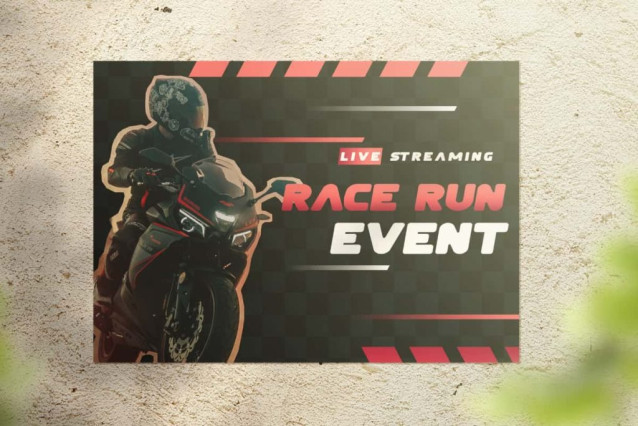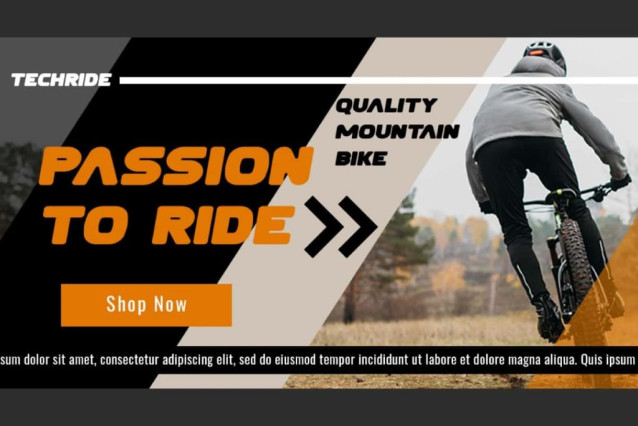
Nasionaliz Font
Nasionaliz Font is a fun and attractive strong bold typeface, suitable for all unique and semi-futuristic design works! This font can be used for anything such as banners, blogs, brochure, coves, flyer, headline, invitations, label tags, mockup, poster, printed materials, quotes, signage, skateboard, sticker, t-shirt designs, template, website, etc. Get creative!
Nasionaliz Font includes full set of Uppercase and Lowercase Basic Characters, Numbers, Punctuation, Symbols and Ligature. Made more of a typical rounded square shape and leaning towards a more interesting sci-fi theme. Perfect for advertising, clothing brand, creative studio, cycling, game developers, graphic design, motorsports, skateboarding, web designer, etc.